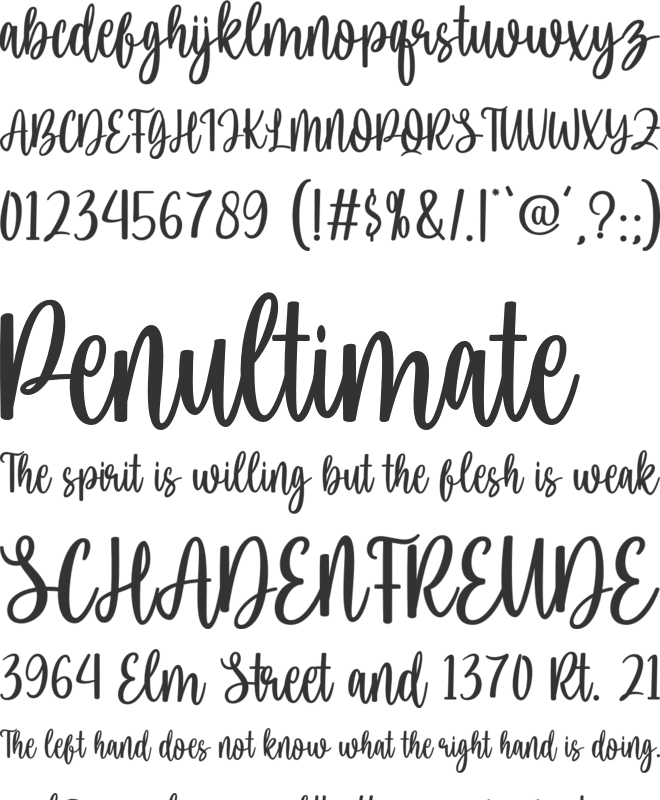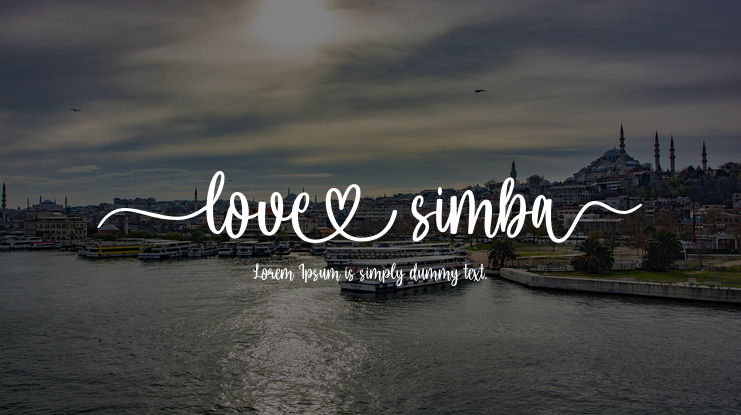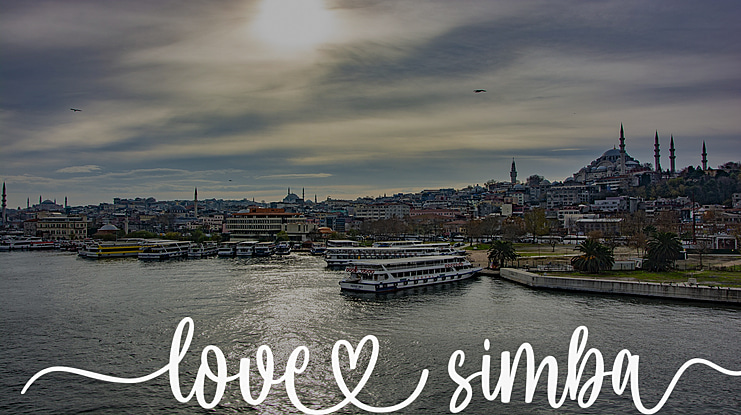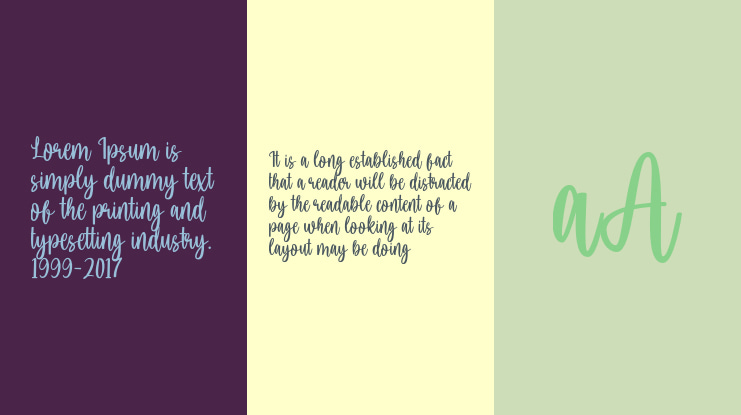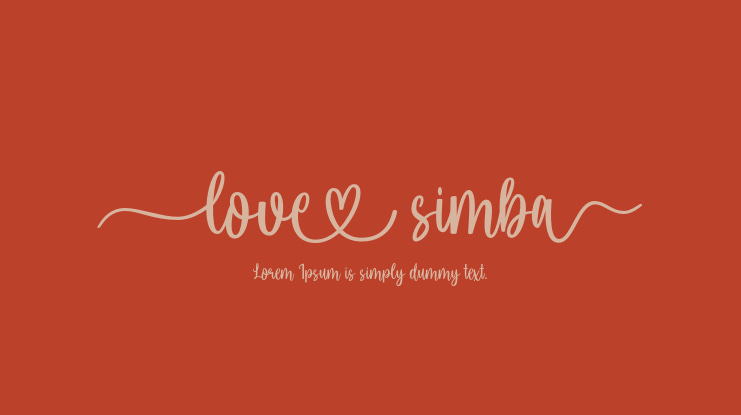
love simba Font
This is a delicate, elegant and flowing handwritten font. It has beautiful and well-balanced characters and as a result, it matches a wide pool of designs. Add it to your most creative ideas and notice how it makes them come alive!